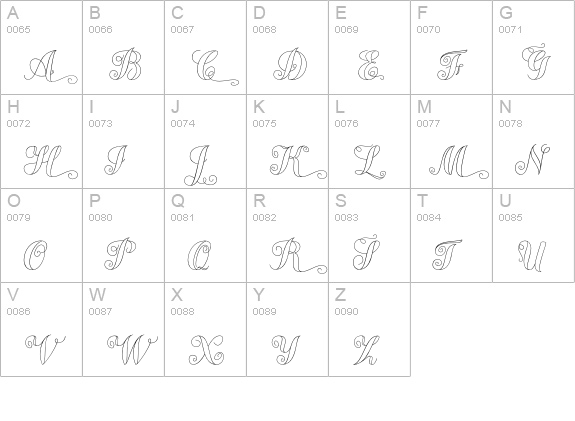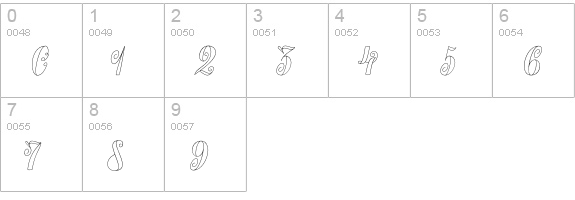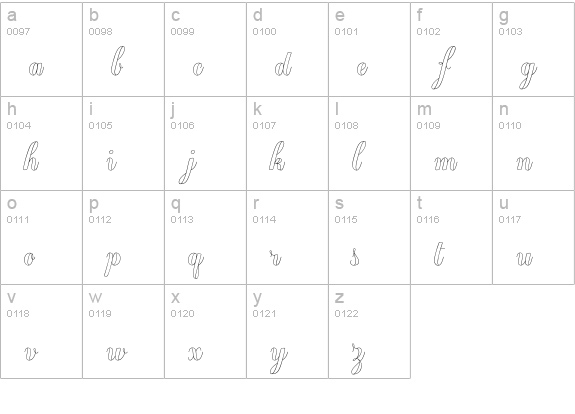
Chameleon Outline2 font is a sleek and modern typeface that effortlessly combines elegance with a touch of playfulness. This versatile font features clean lines and a unique outline design that adds a distinct charm to any project. Whether you're working on a poster, logo, or branding material, Chameleon Outline2 font will make your text stand out with its eye-catching appearance. What's even better is that Chameleon Outline2 font is available for free download at FontsMarket.com. This means you can easily access this stylish font and use it in your designs without any cost. Don't miss out on the opportunity to add a touch of sophistication to your work with Chameleon Outline2 font - get your free download today!